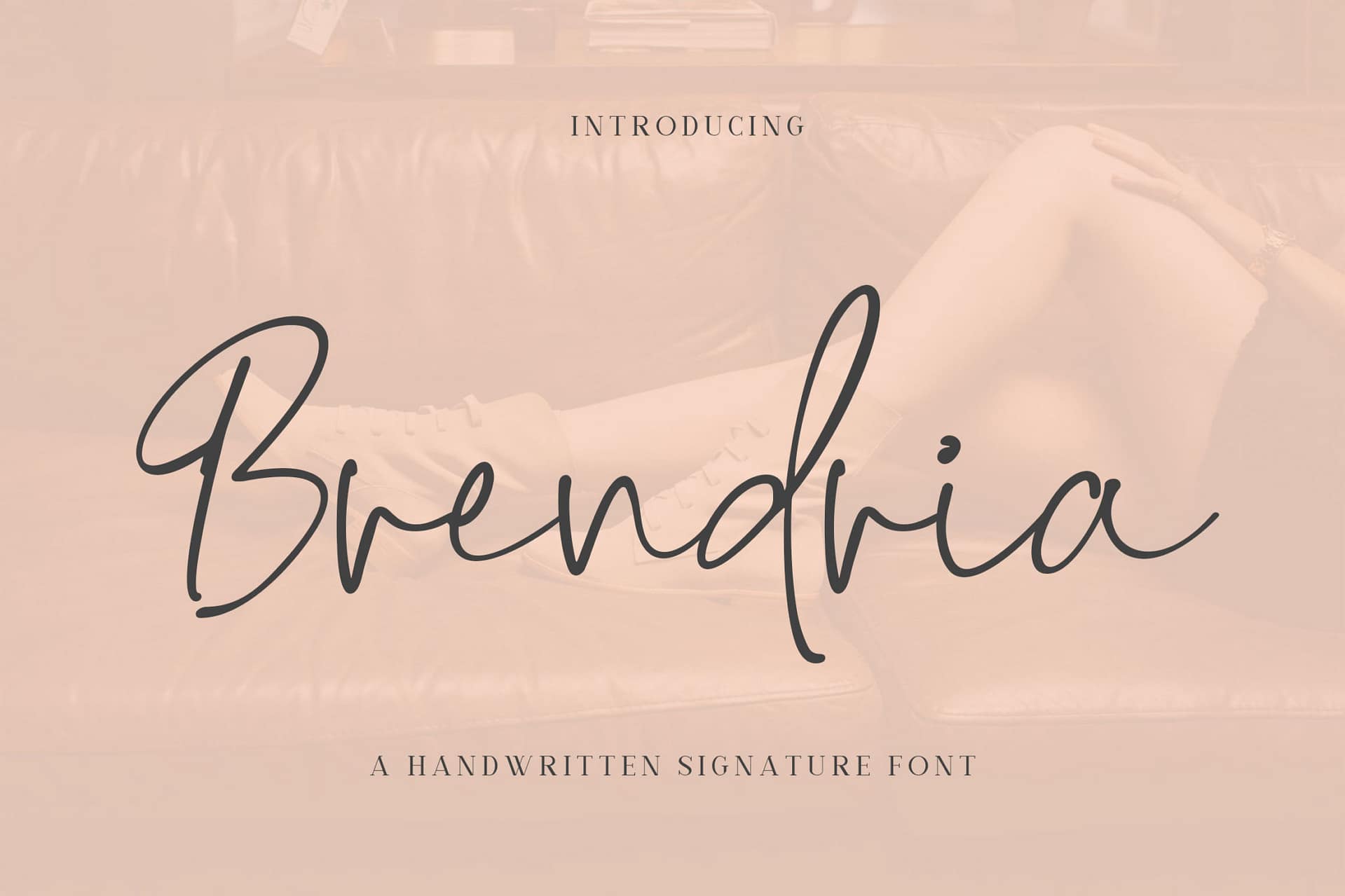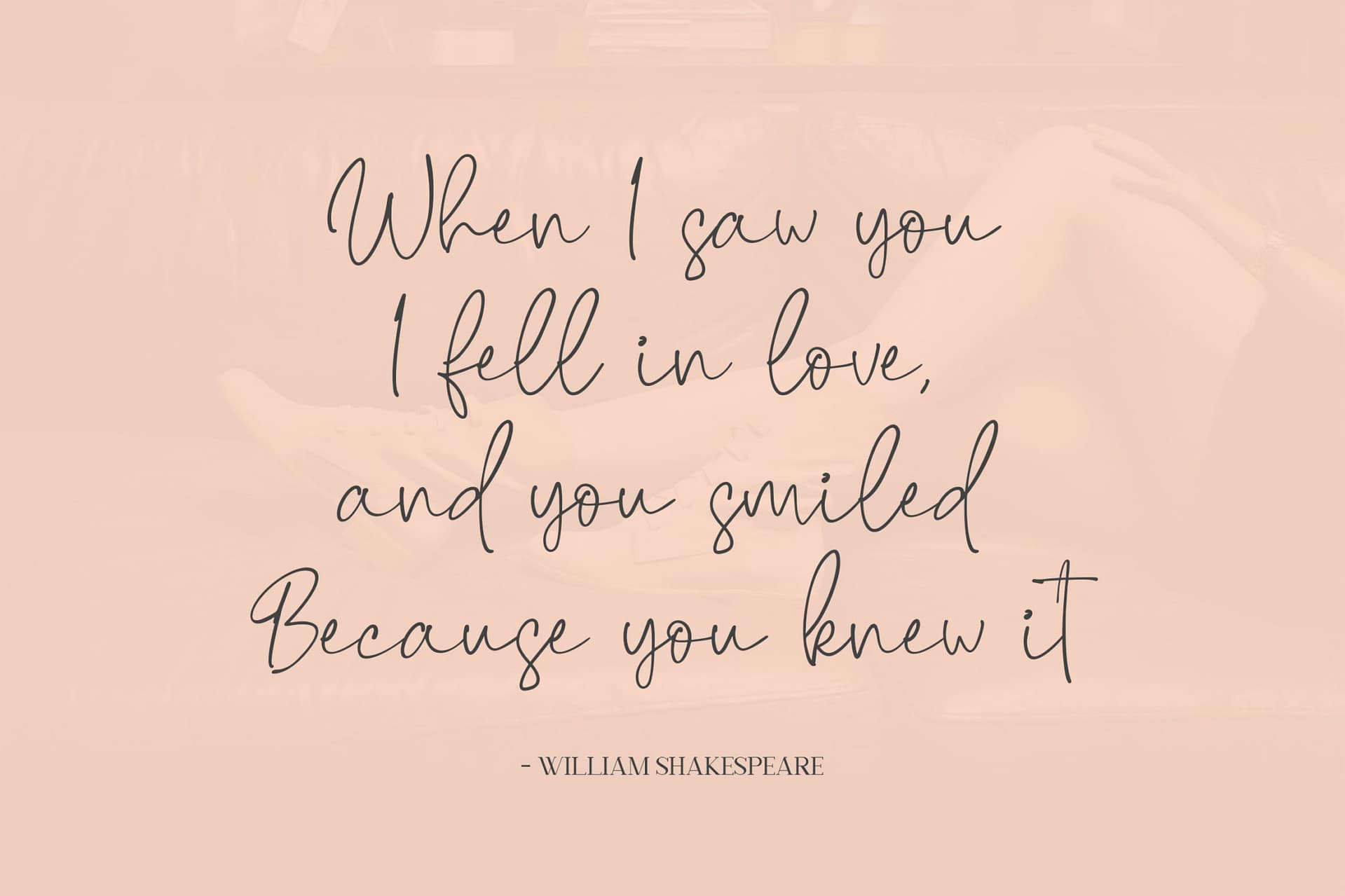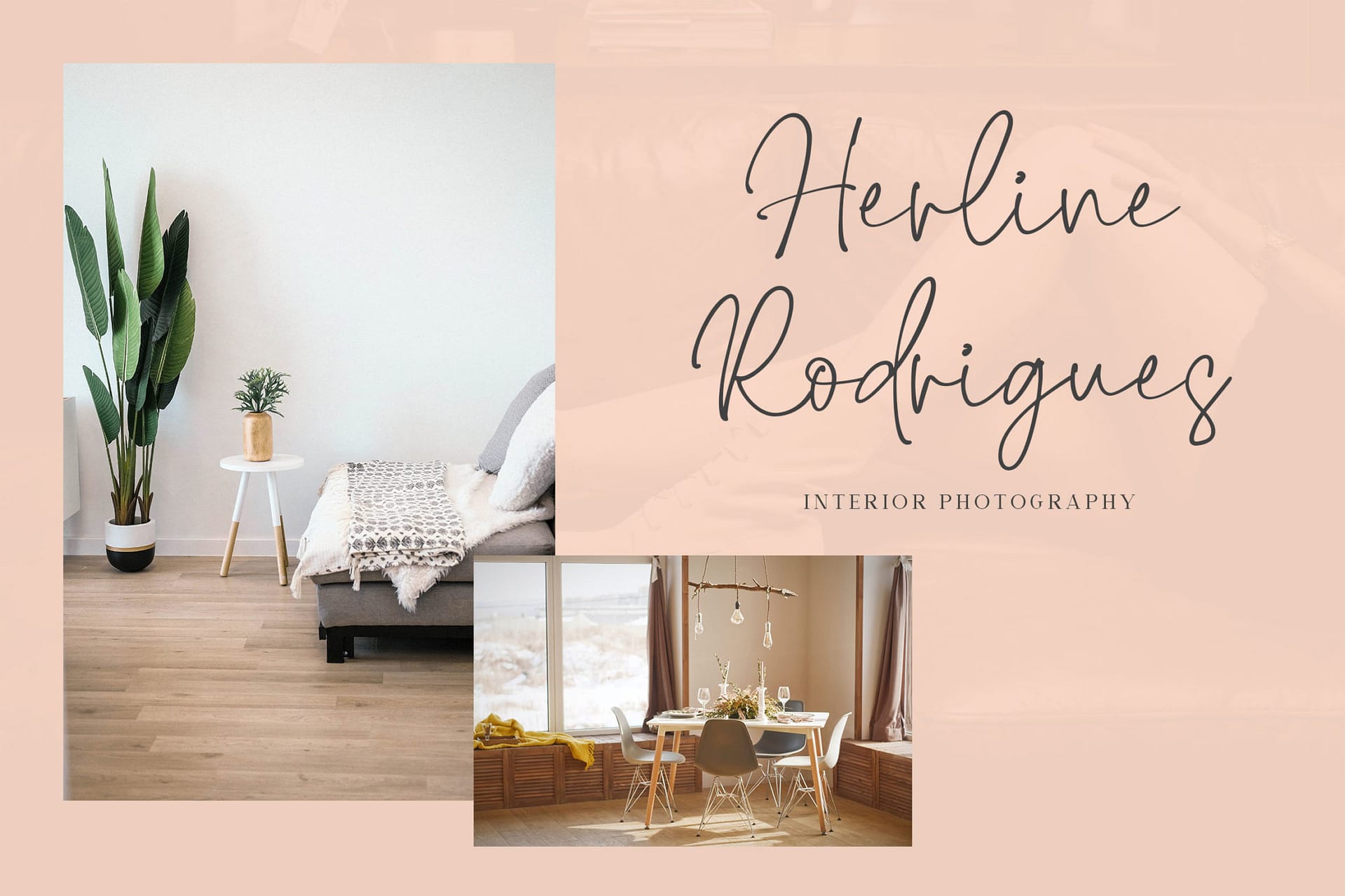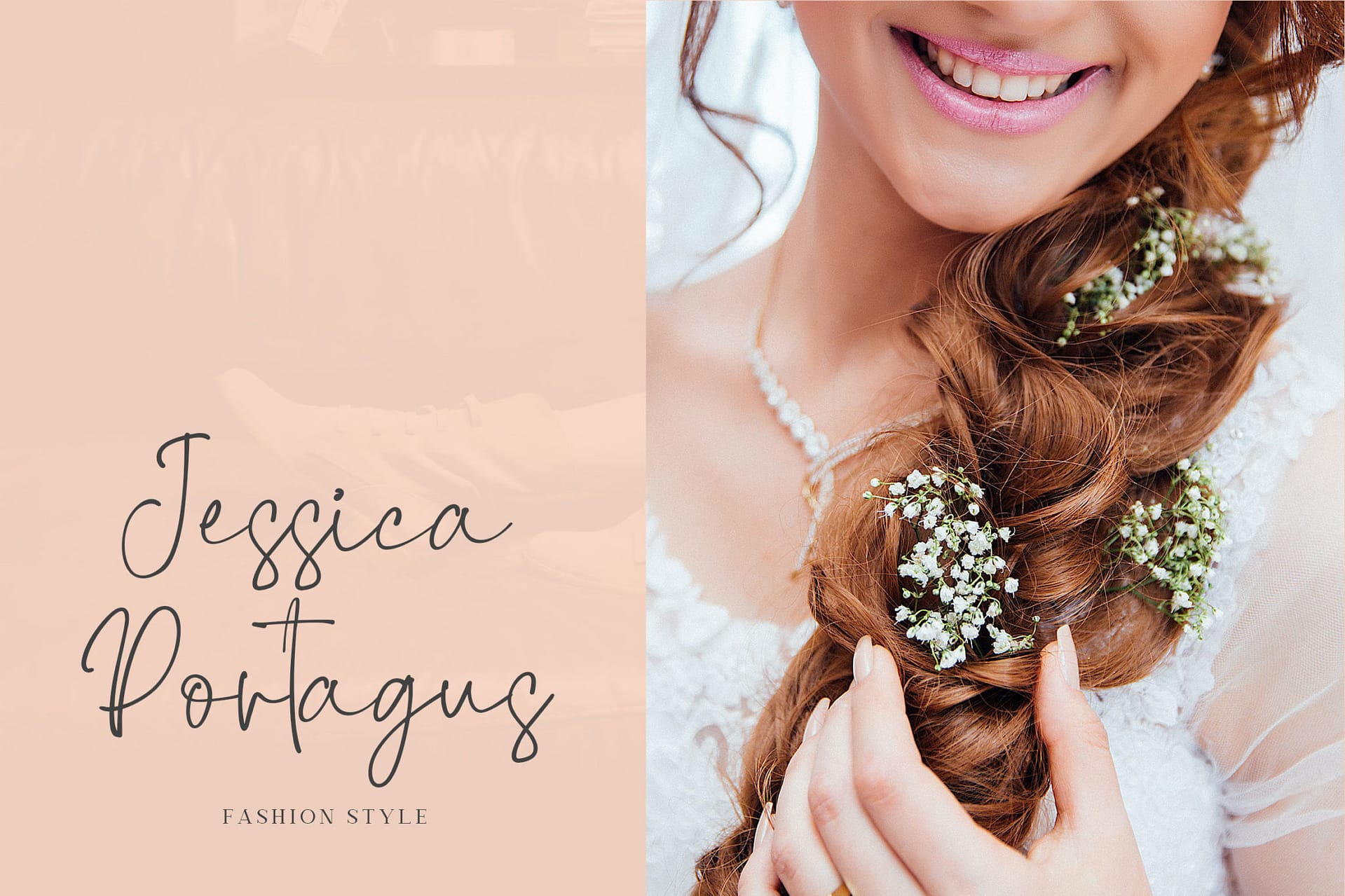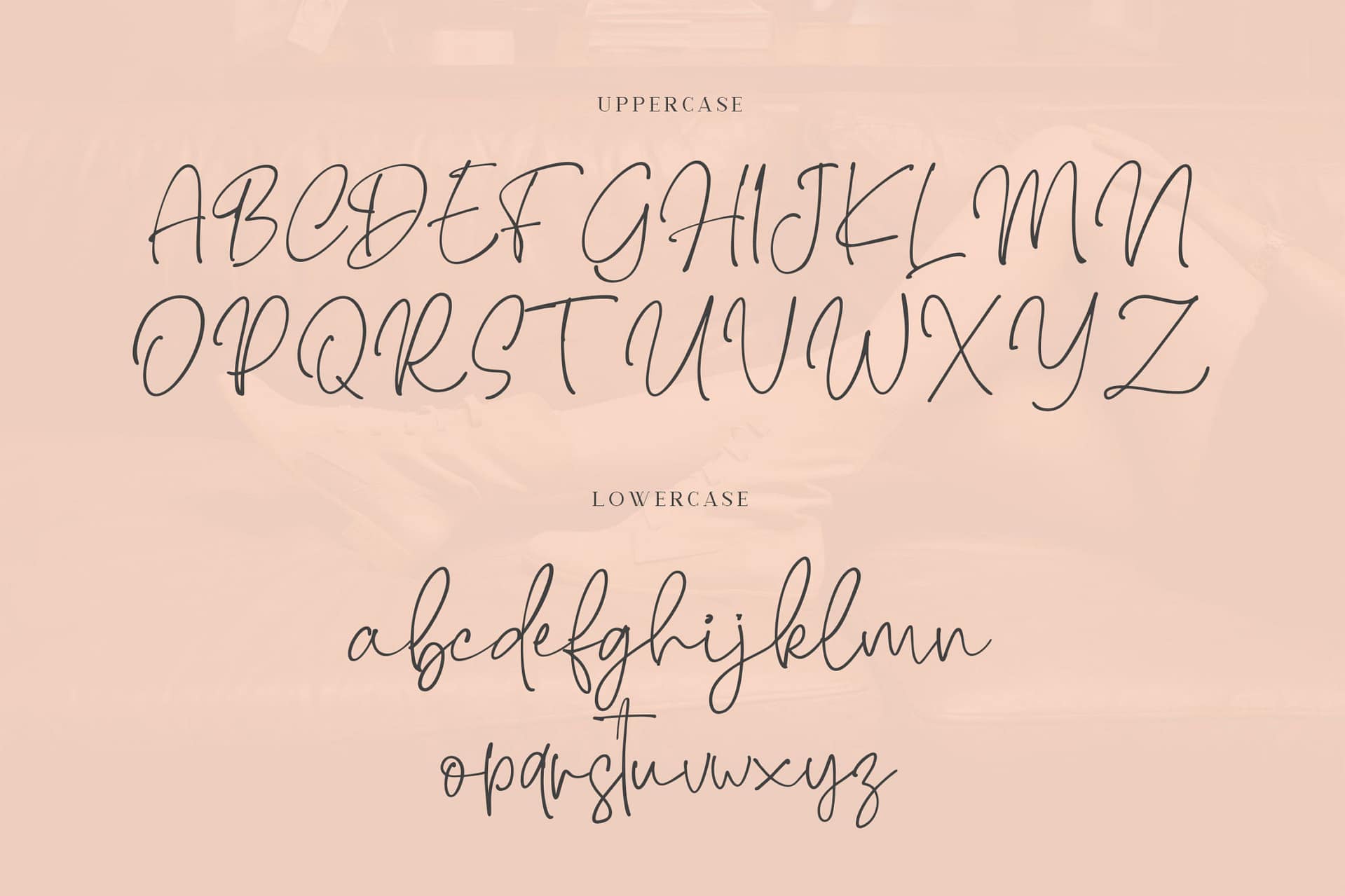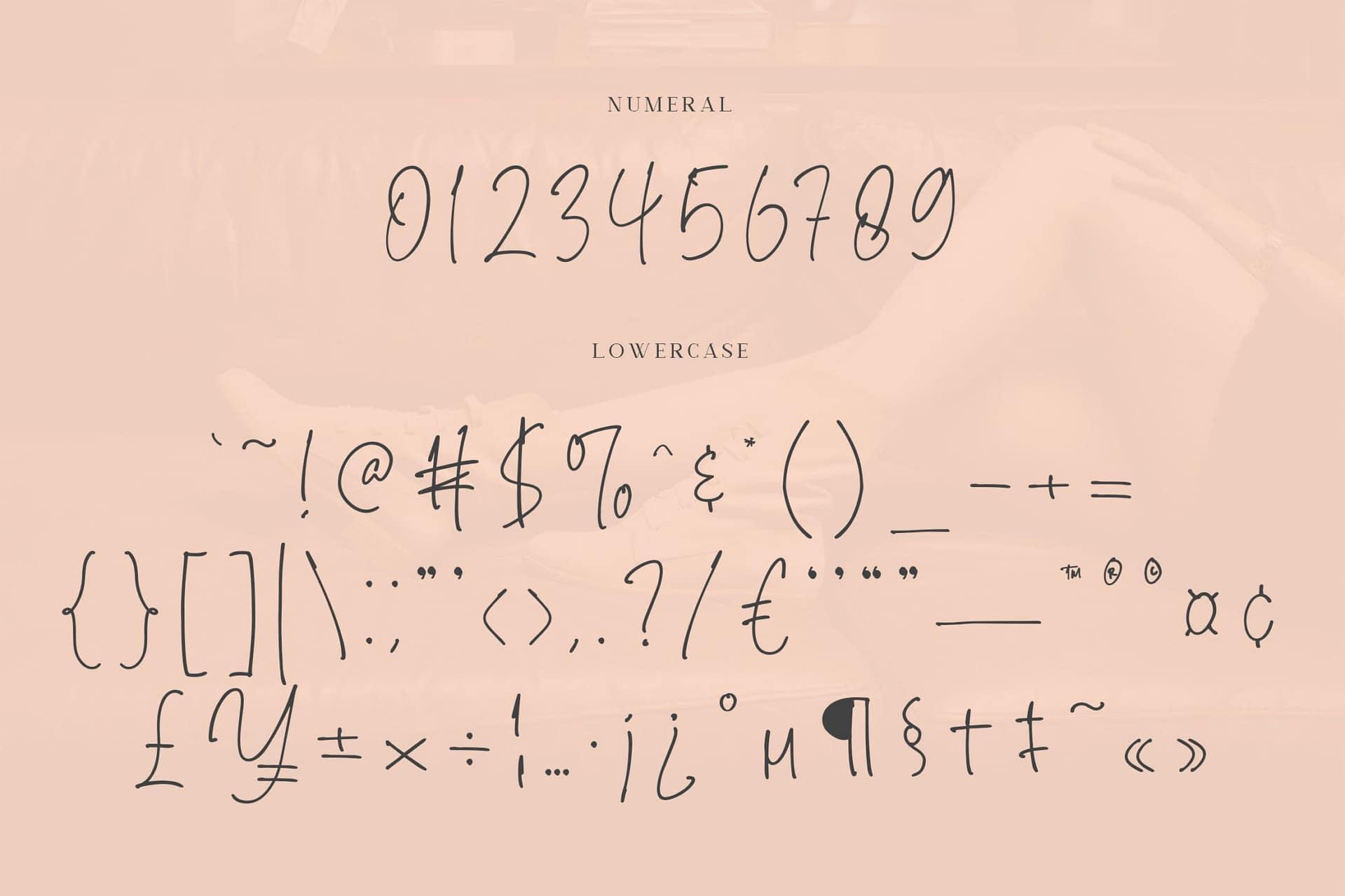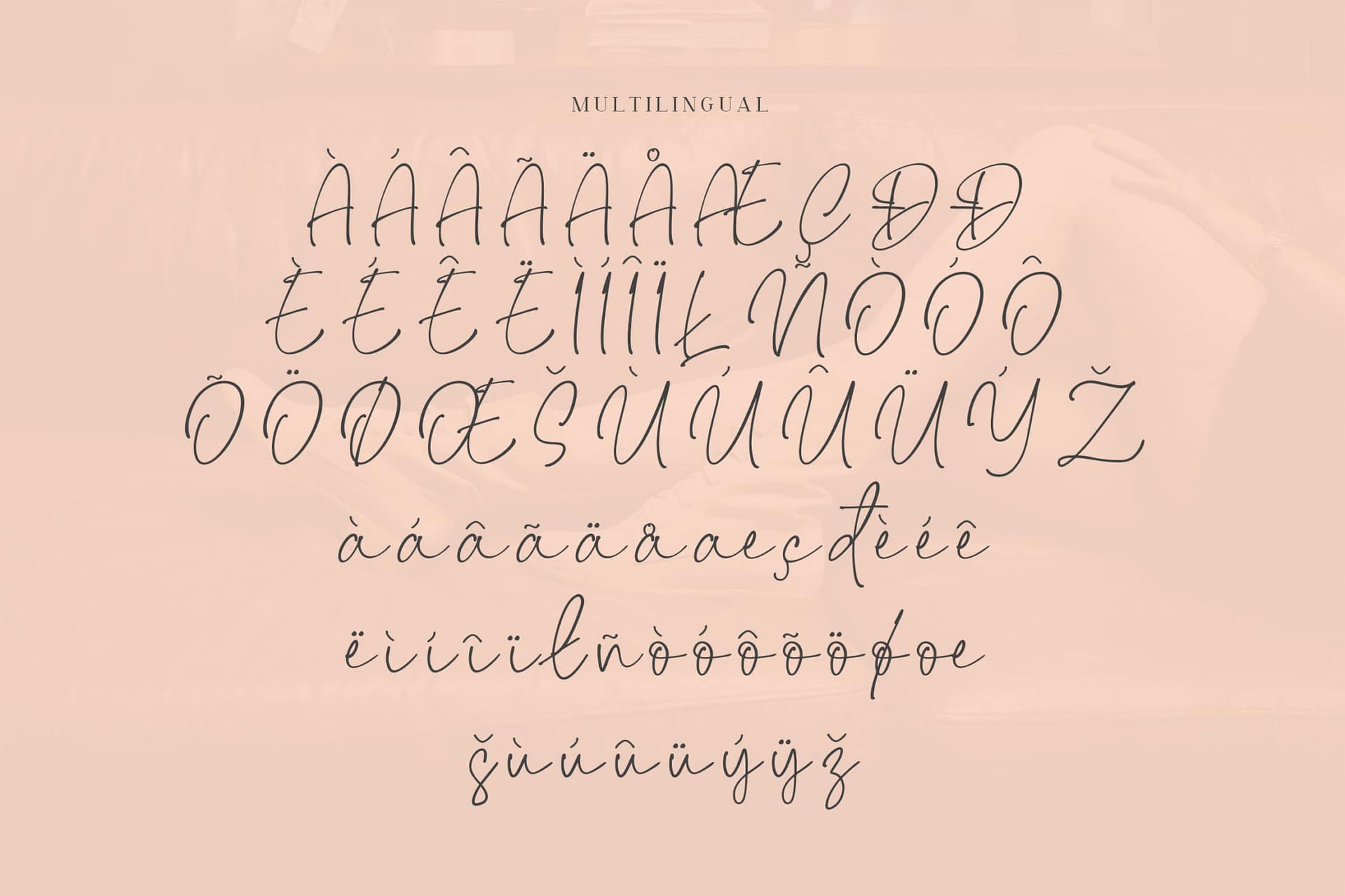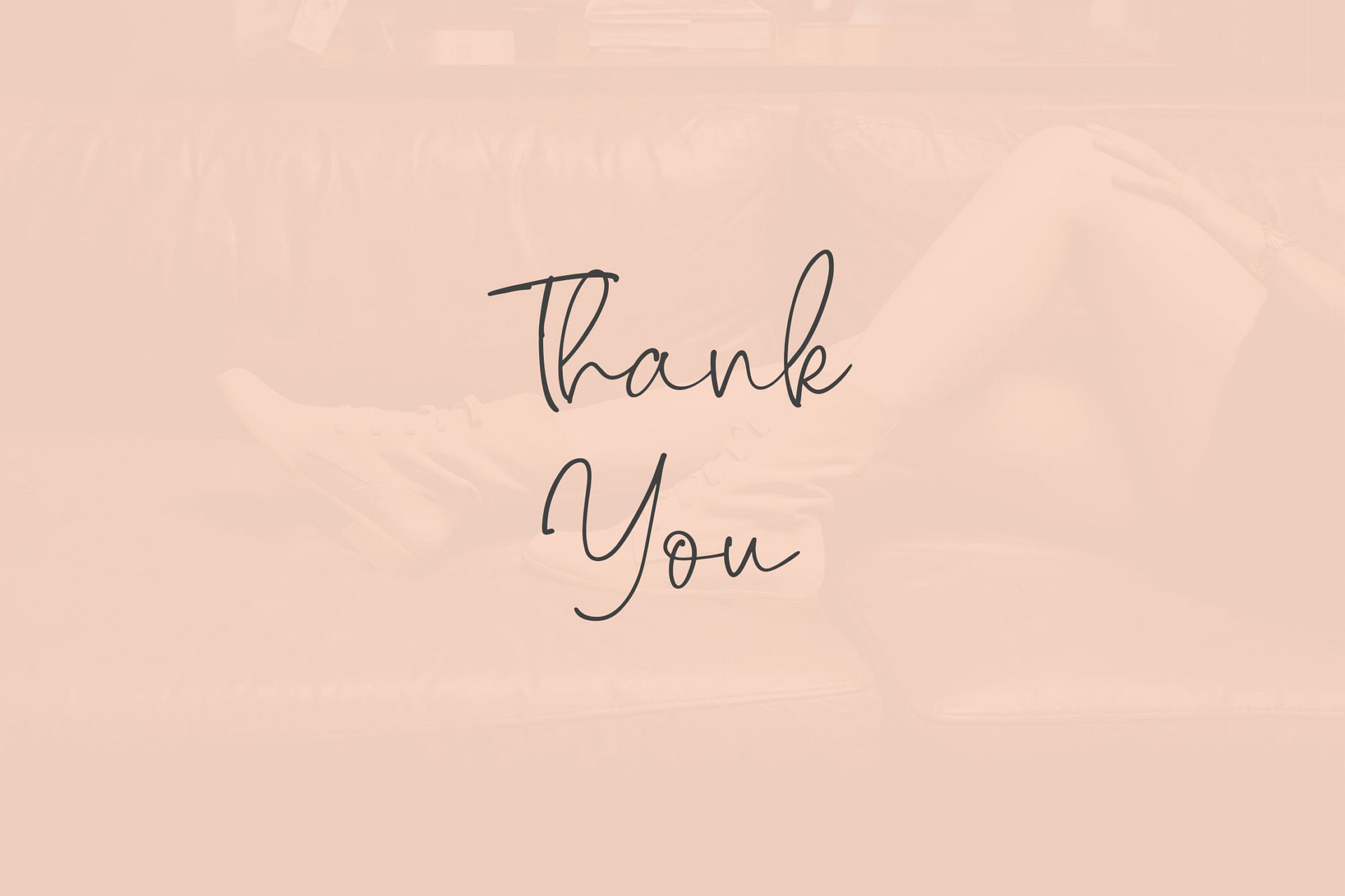
Brendria Signature font. It has a elegant, classy look and beauty. It’s a great font for fashion, apparel projects, signature, album cover, logo, branding, magazine, social media, & advertisements, but also works great for other projects.
• Basic Latin A-Z and a-z
• Numbers
• Punctions
Brendria – Signature Font